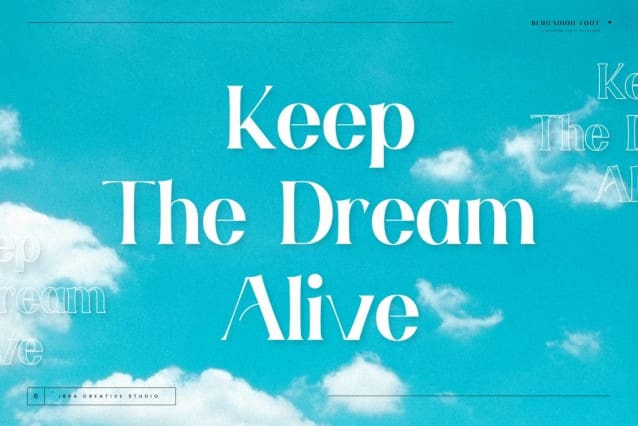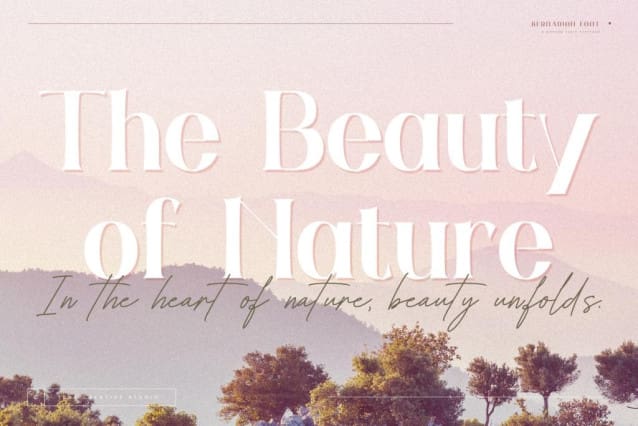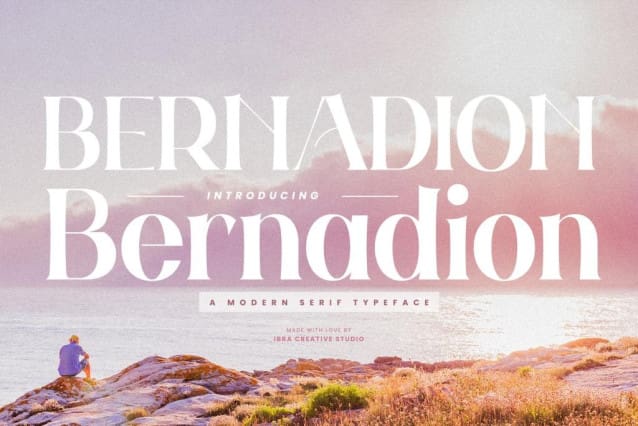
Bernadion Font
Bernadion Font is a modern serif typeface, seamlessly merges sophistication with contemporary design elements, creating a harmonious balance of timeless elegance and sleek aesthetics. With its refined letterforms and subtle geometric influences, Bernadion captures attention with a crisp and professional demeanor. The font’s balanced proportions and meticulous detailing ensure clarity and readability across various platforms, making it versatile for both print and digital applications.